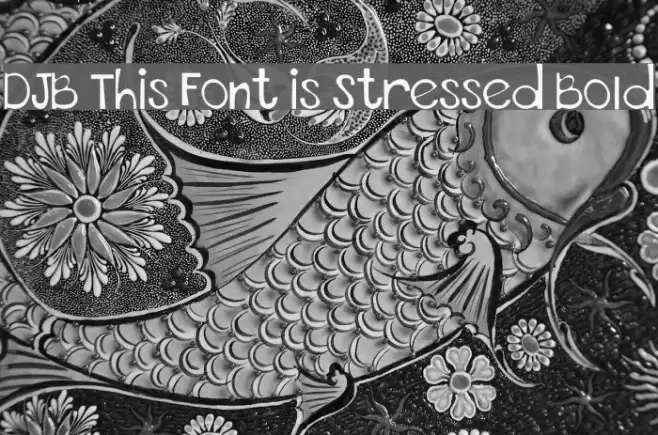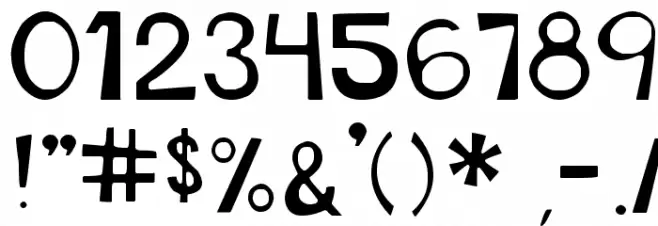
DJB This Font is Stressed Bold Font
DJB This Font is Stressed Bold Description
This font features a playful and quirky design with uneven strokes and a hand-drawn appearance. The characters are bold and slightly irregular, giving it a whimsical and informal feel. The uppercase letters are distinct with varying heights and widths, while the lowercase letters maintain a consistent style that complements the uppercase. Numbers and special characters follow the same playful theme, making the font suitable for creative and fun projects. Its unique style stands out, making it ideal for eye-catching designs.
A playful, hand-drawn font with bold, irregular strokes from Uncategorized fonts.
- Proposed Projects: Ideal for children's books, playful branding, greeting cards, and creative posters.